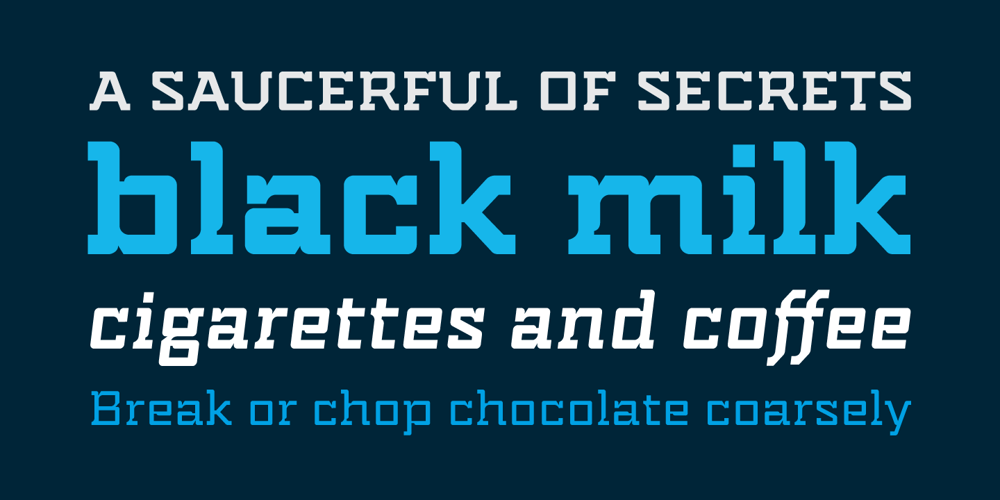
MM Indento Font Family was designed by Mugur Mihai and published by MM Fonts. MM Indento contains 6 styles and family package options. Indento is a multi-purpose modern geometric slab serif for headlines, posters, branding but fairly legible to be used as longer text. The straight and rounded corners combined with deep cuts and asymmetric serifs gives it a distinctive look while still keeping its rigorousness and legibility. The family consist of three weights, each with a companying italic. The extensive character set—513 glyphs in each font—includes support for Central and Eastern European languages and OpenType features like small caps, ligatures, fractions, slashed zero, stylistic alternates and more.